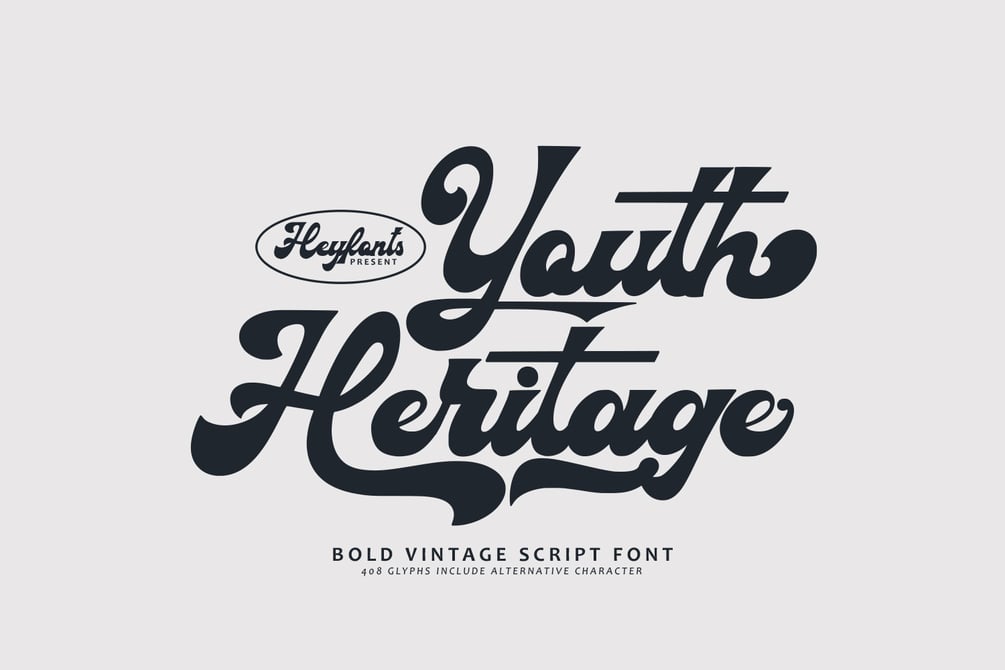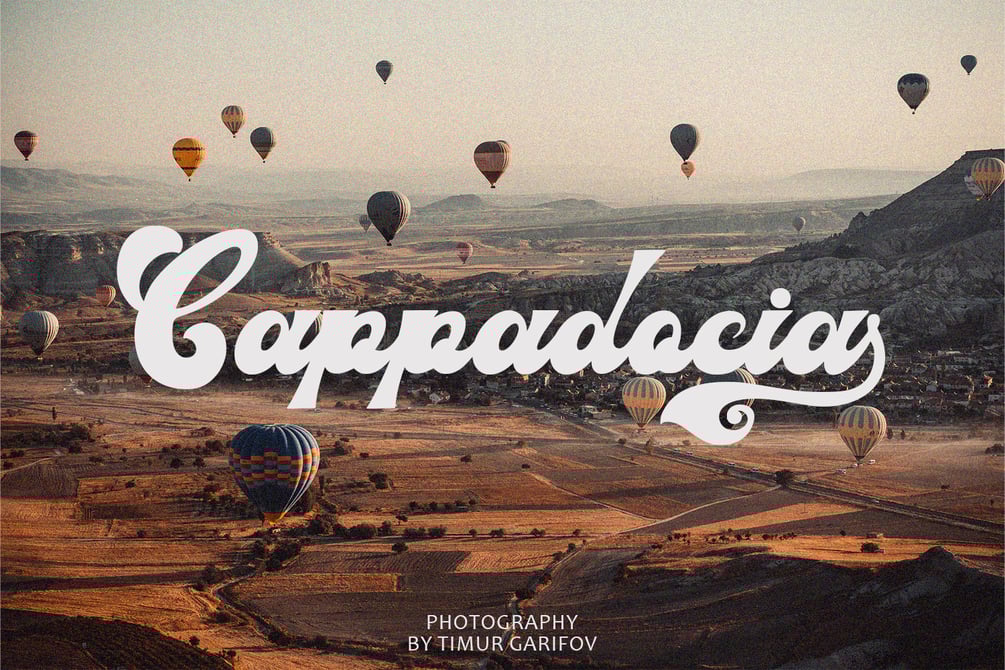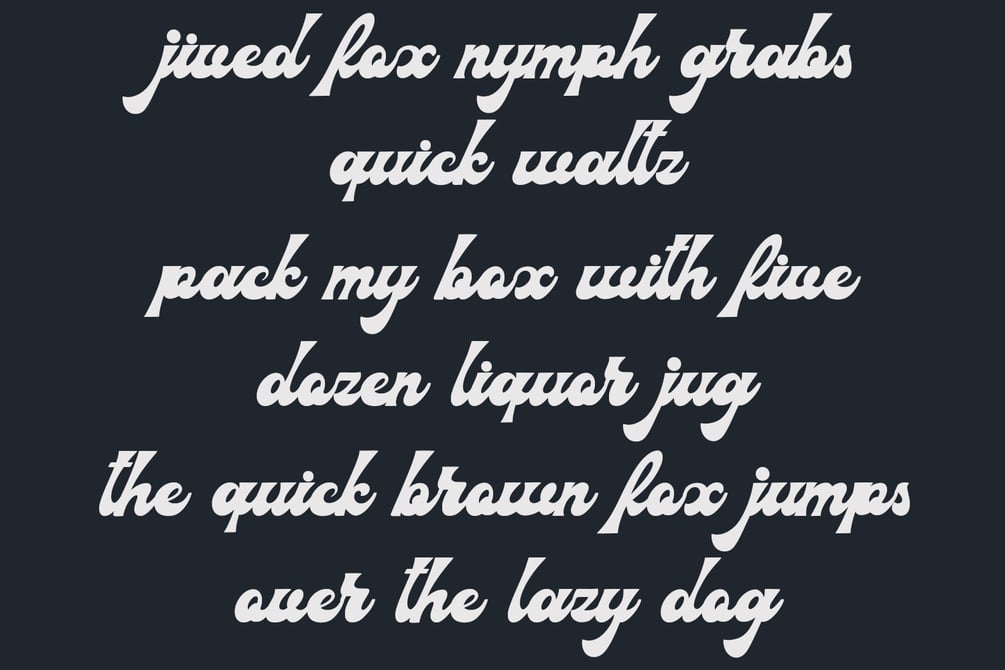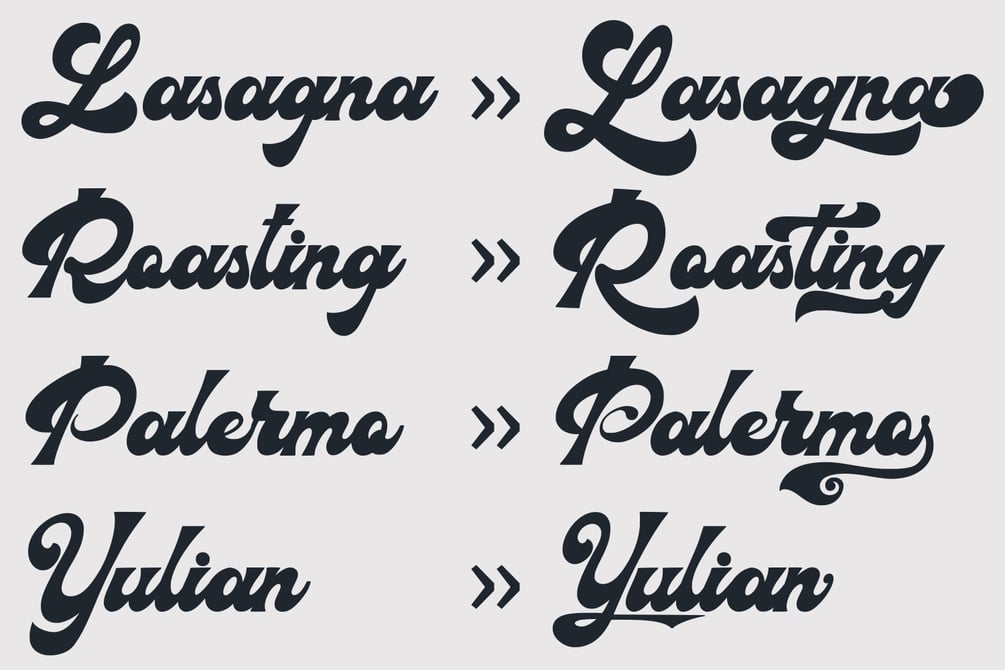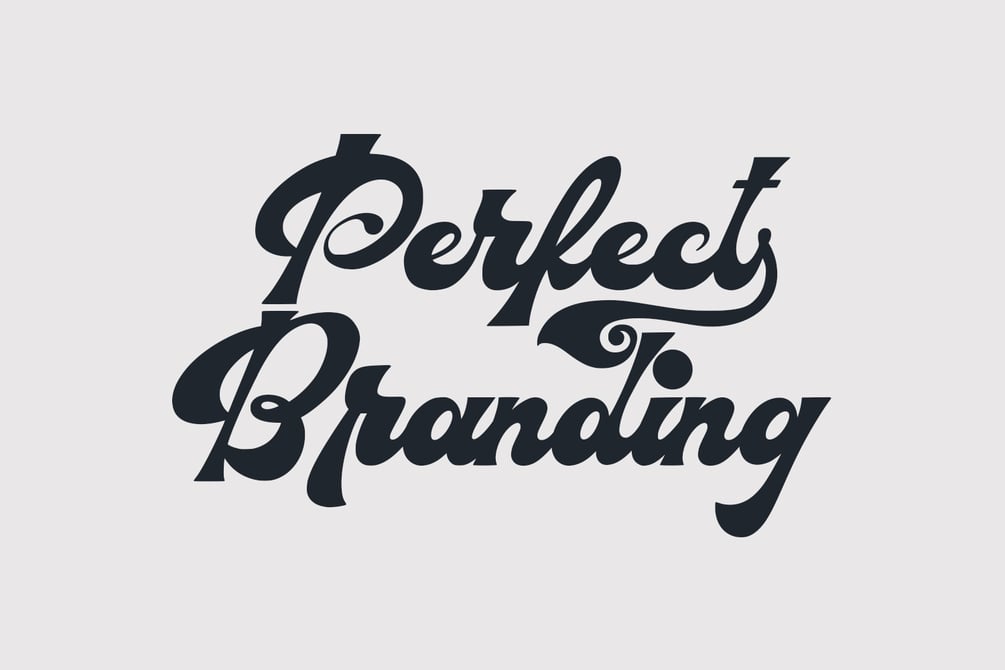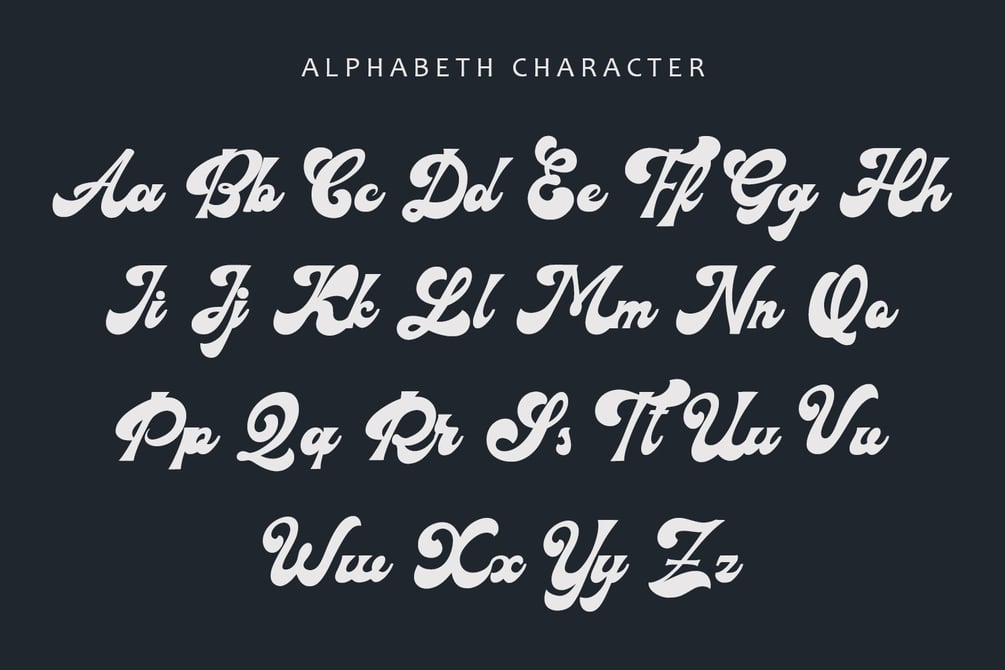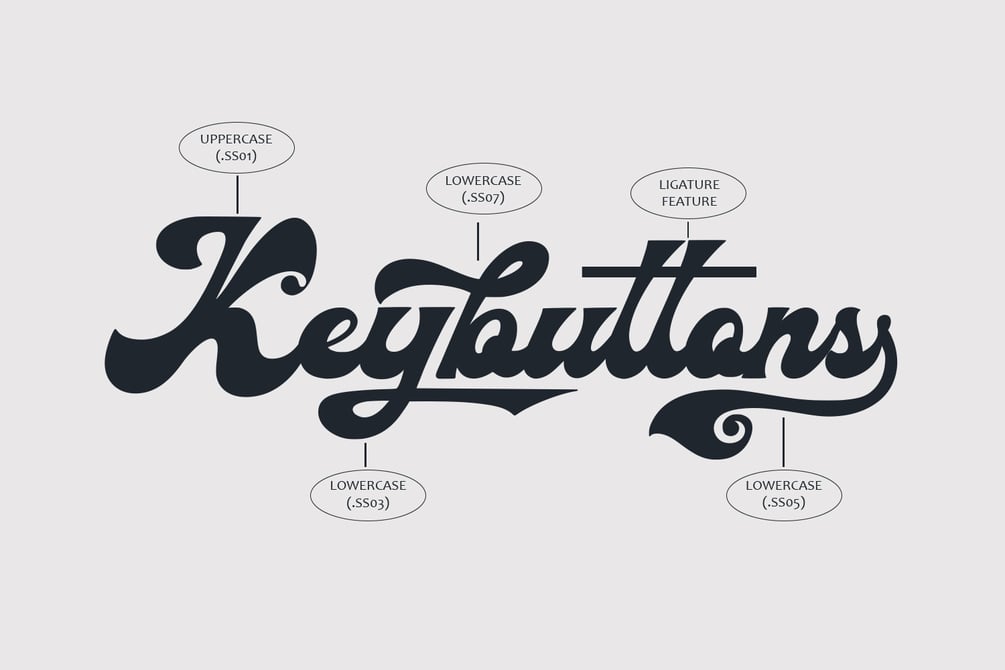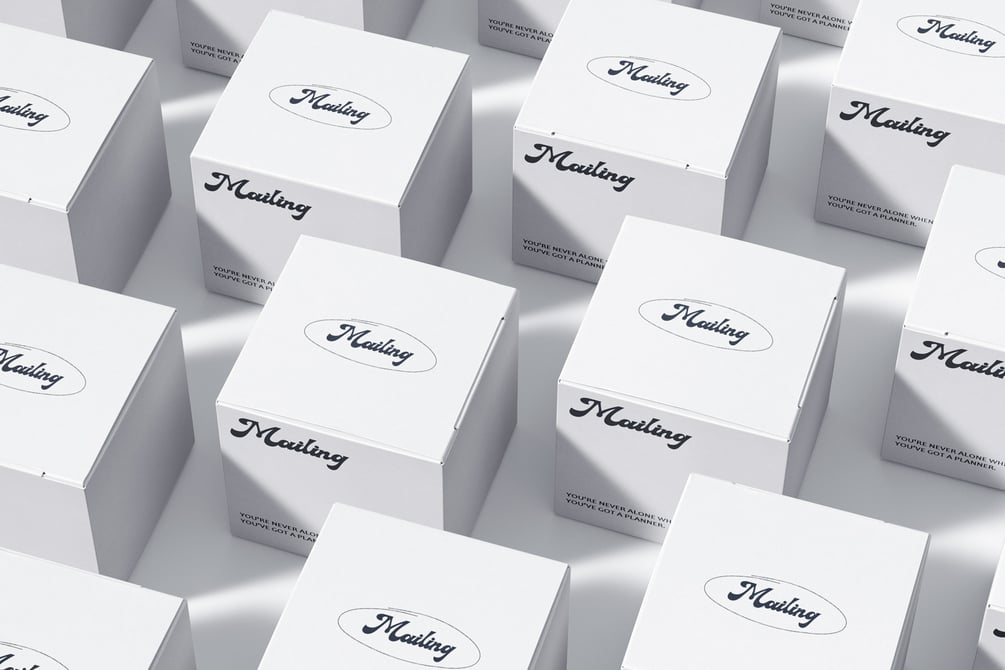
Youth Heritage – Bold Script Font
Youth Heritage Font is a vintage bold script font that pays homage to the rich visual heritage associated with youthful exuberance and retro aesthetics , This typeface combines bold, expressive strokes with a script style reminiscent of classic hand-lettering from bygone eras, capturing the spirit of vintage design. Here’s a detailed explanation of the key features and characteristics of the Youth Heritage Font:
Features:
1. Vintage Aesthetics: The Youth Heritage Font is designed to evoke a sense of nostalgia, drawing inspiration from vintage typography prevalent during the mid-20th century, Its design elements reflect the bold and charismatic lettering styles associated with retro signage and advertising.
2. Bold and Expressive Strokes: One of the defining features of this font is its bold and expressive strokes. Each letter is crafted with confidence, making a strong visual impact. This characteristic contributes to the font’s ability to command attention and stand out in various design applications.
3. Script Style: The script style of the font imparts a handwritten and personalized feel. The cursive letterforms flow seamlessly, creating a sense of dynamism and adding a touch of informality to the overall design.
4. Distinctive Lettering: Each letter in the font is crafted with attention to detail, featuring unique and distinctive characteristics. This ensures that the font maintains its individuality and offers a distinct typographic personality.
Applications:
1. Vintage Branding: The Youth Heritage Font is well-suited for vintage branding projects.
2. Apparel Design: Designers in the fashion industry can leverage this font for apparel branding and graphic designs. Its bold script style adds a retro flair to T-shirts, hoodies, and other clothing items, giving them a timeless and stylish appeal.
3. Retro Signage: The bold and expressive nature of the font makes it a perfect choice for retro signage and display purposes.
4. Event Posters and Flyers: When designing promotional materials for events, concerts, or parties with a vintage theme, the Youth Heritage Font can contribute to a cohesive and visually appealing poster or flyer design.
5. Social Media Graphics:  Its bold and expressive script style can make posts and announcements more engaging and shareable.